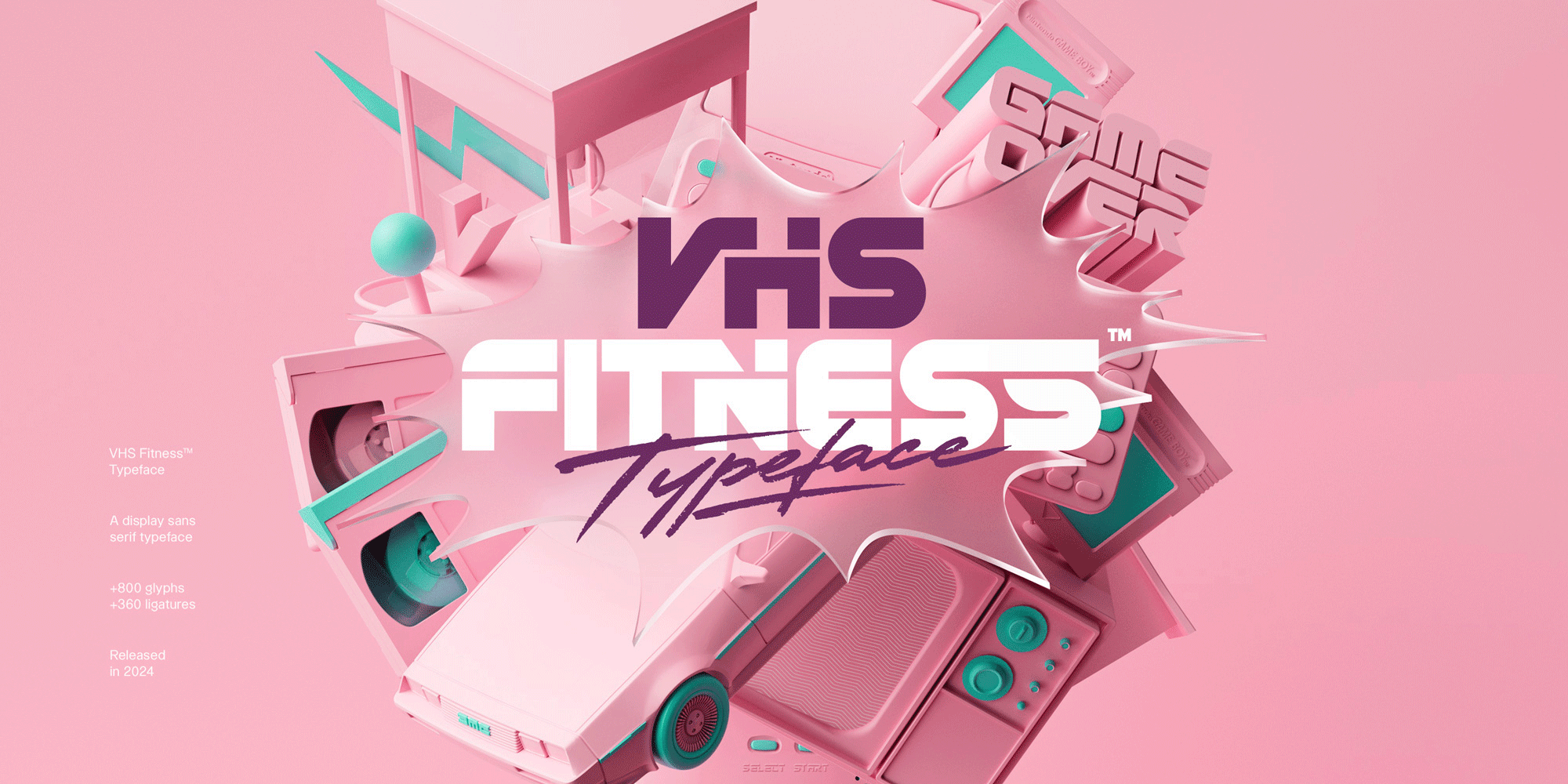
Vhs Fitness Font is perfect for retro fitness studio branding, 80s workout class promotions, vintage gym equipment advertising, aerobics instructor materials, nostalgic sports apparel designs, throwback fitness campaigns, old-school bodybuilding posters, neon-lit gym signage, retro health club marketing, and synthwave fitness applications. Its energetic retro character makes it ideal for projects requiring authentic 80s fitness culture and nostalgic workout aesthetics.
What makes Vhs Fitness Font exciting is its electrifying capture of 1980s fitness culture with bold geometric forms and high-energy characteristics that transport viewers to the golden age of aerobics and bodybuilding enthusiasm. The font features dynamic angles, vibrant stroke weights, and athletic-inspired letterforms that create authentic retro fitness atmosphere and nostalgic workout appeal. Its energetic personality brings motivation and excitement to contemporary designs while maintaining the authentic quality that captures the spirit of 80s fitness revolution and workout culture. The carefully crafted retro elements ensure visual impact while preserving the distinctive character that embodies the essence of vintage fitness enthusiasm and athletic achievement.
Vhs Fitness Font comes in multiple energetic variations including Regular, Bold, Outline, Shadow, and Neon styles. Each family member amplifies the distinctive retro fitness character while offering different levels of visual intensity and nostalgic authenticity. The complete font family includes alternate characters, fitness symbols, and retro decorative elements that enhance the energetic aesthetic and provide comprehensive tools for creating authentic 80s fitness brand experiences.
Whether you're developing retro fitness brands, nostalgic workout programs, or vintage athletic projects, Vhs Fitness Font Free Download provides the authentic 80s energy needed to connect with fitness enthusiasts and nostalgia seekers who appreciate vintage workout culture and retro athletic aesthetics. The font's energetic appeal resonates with gym-goers and fitness professionals seeking genuine retro credibility and nostalgic authenticity. Its comprehensive character set includes fitness symbols and retro marks, making it perfect for creating complete vintage fitness brand systems and memorable 80s workout storytelling across diverse athletic applications and nostalgic fitness design projects.